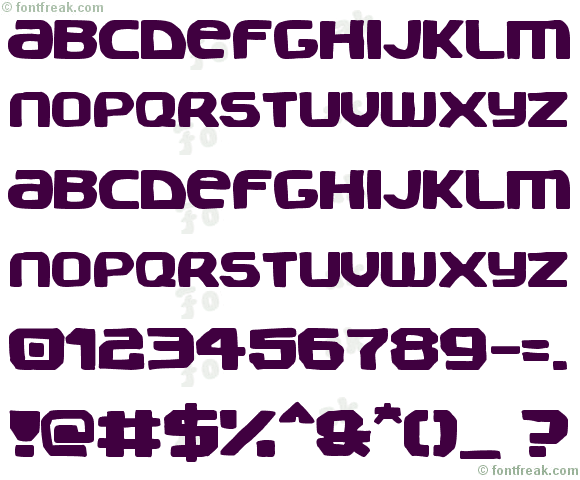
The Toy Castle
The Toy Castle, designed by woodcutter Manero, is a distinctive display typeface that captures a playful and whimsical aesthetic. This font features bold, rounded letterforms with a consistent stroke weight that adds a sense of fun and approachability. The letters exhibit minimal contrast, giving them a friendly and cohesive appearance. The spacing is well-balanced, ensuring clarity in both large and small text settings, while the overall design incorporates charming decorative elements that evoke a sense of nostalgia and creativity.
Ideal for a variety of applications, The Toy Castle font shines in contexts where a lively and engaging atmosphere is desired. It is perfect for children's book covers, where its playful nature can draw in young readers. Additionally, this font works wonderfully for birthday party invitations, providing a festive touch that sets the tone for celebration. Restaurant menus, especially those aimed at families, can benefit from its inviting character, making the dining experience feel more enjoyable. Furthermore, The Toy Castle font is an excellent choice for branding small businesses targeting a youthful audience, helping to establish a memorable identity.
Targeted towards graphic designers, small business owners, and content creators, this font offers versatility and charm. Whether you are crafting a playful social media campaign or designing engaging merchandise, The Toy Castle font can elevate your projects with its unique style.